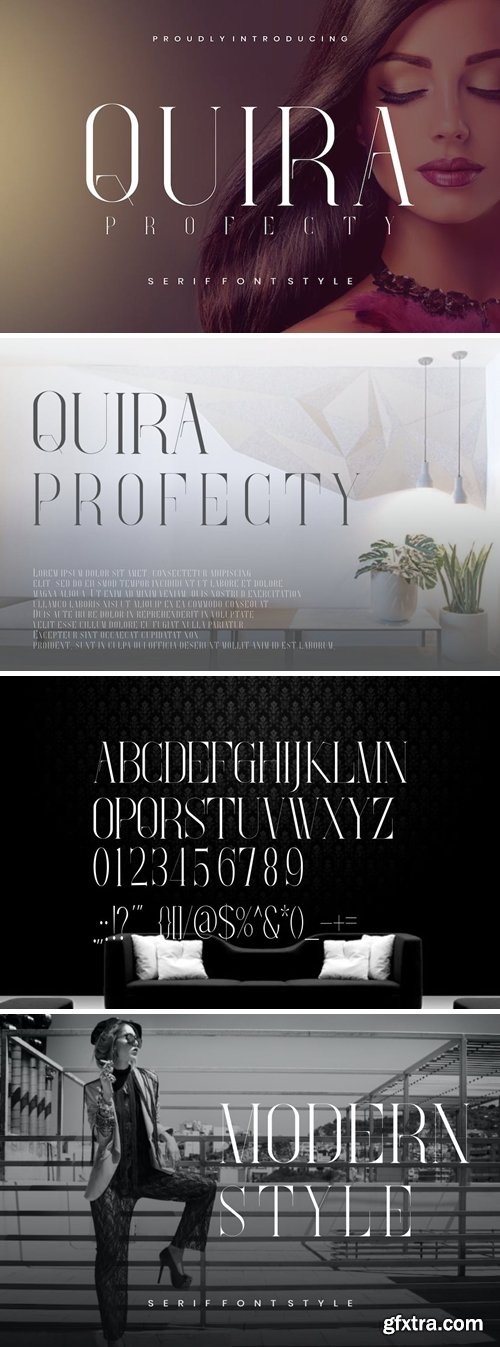
Quira Profecty - Serif Font
Introducing Quira Profecty, a beauty and modern for Serif Font. So perfect for you who needs a typeface for logo designs, magazine, social media, brochure, and many more.